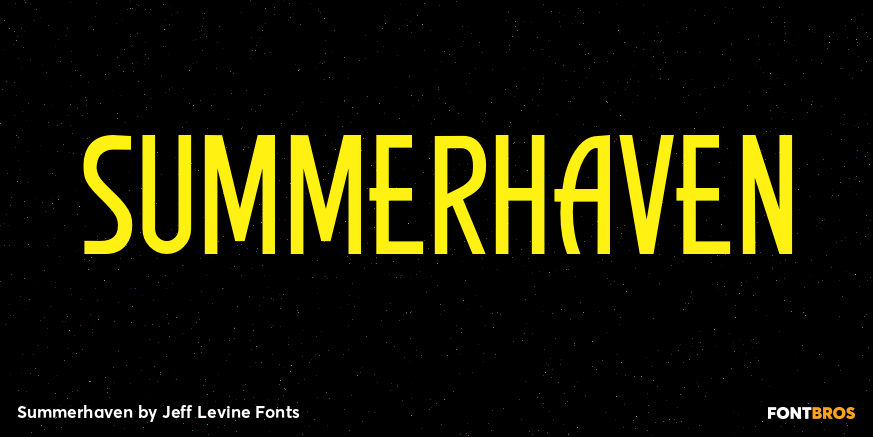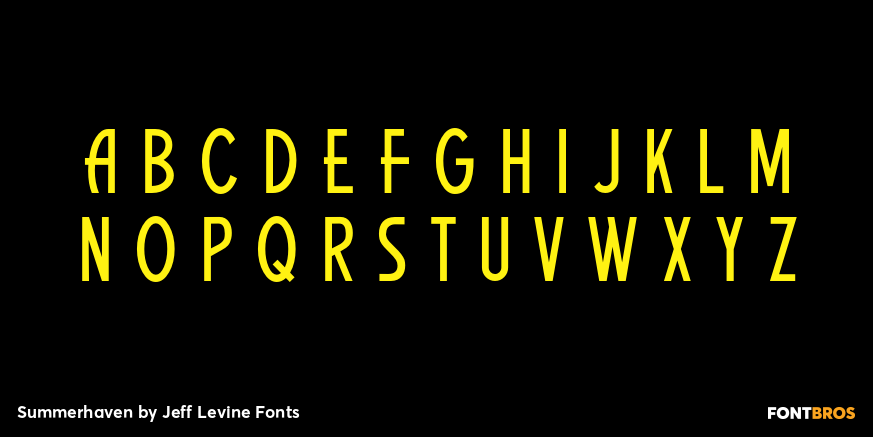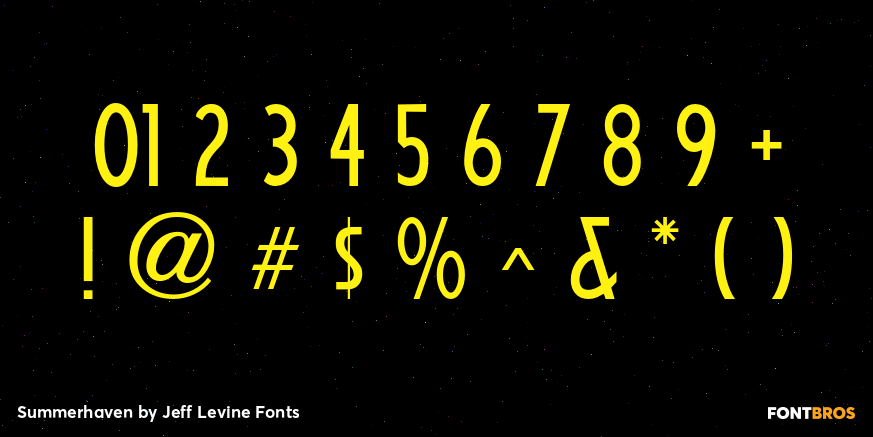
Summerhaven
Summerhaven JNL and Summerhaven Italic JNL were partially inspired by sign lettering spotted in an old black and white movie. These fonts are somewhat reminiscent of the Art Deco style, and their casual look can be applied to both formal and informal messages.
Summerhaven by Jeff Levine Fonts